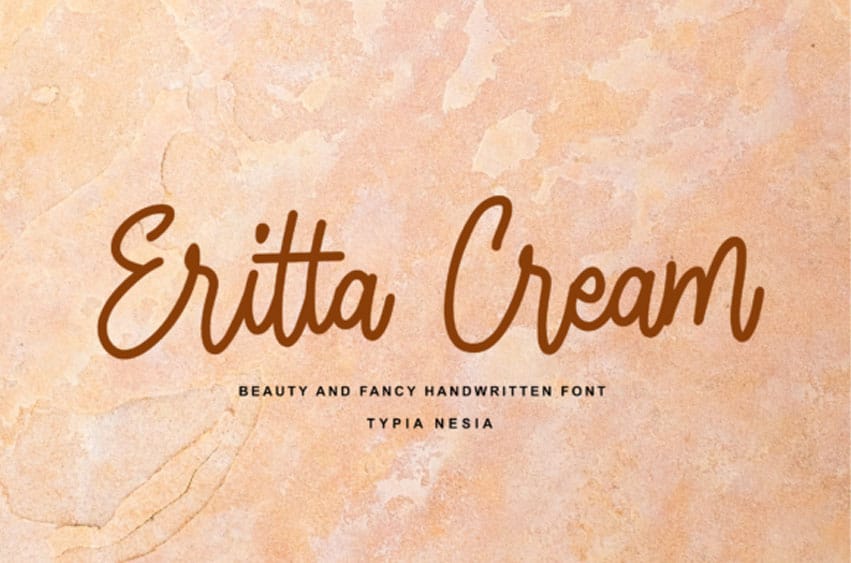
Eritta Cream Font is a tasteful, radiant and sweet script font. It has beautiful and well balanced characters and as a result, it matches a wide pool of designs.
Eritta Cream features a varying baseline, smooth lines, gorgeous glyphs and stunning alternates.